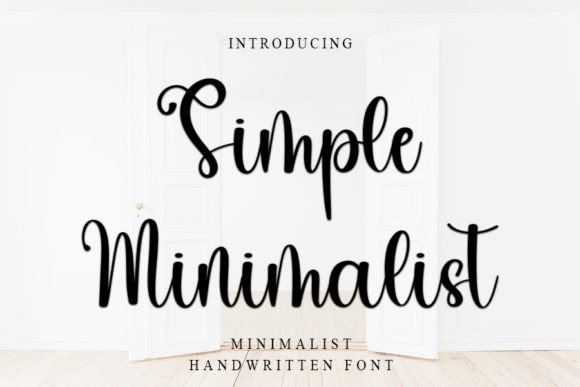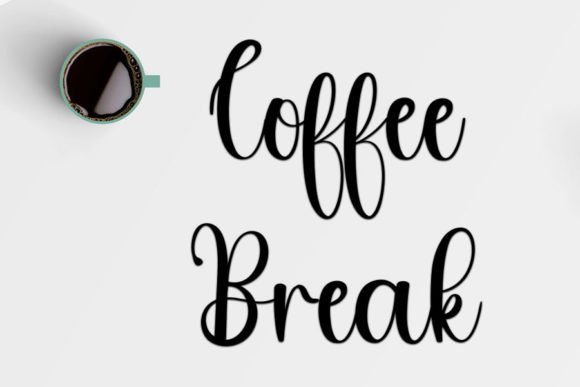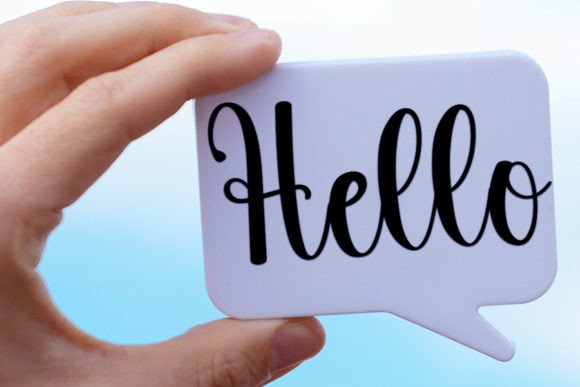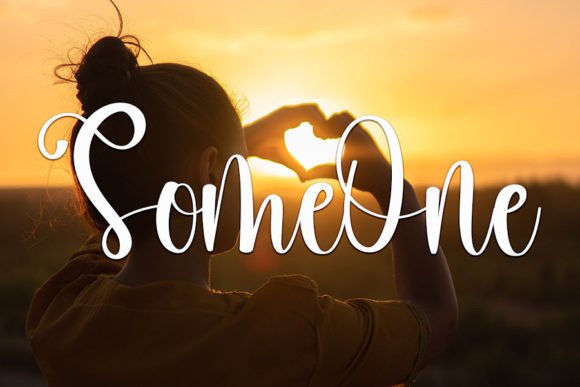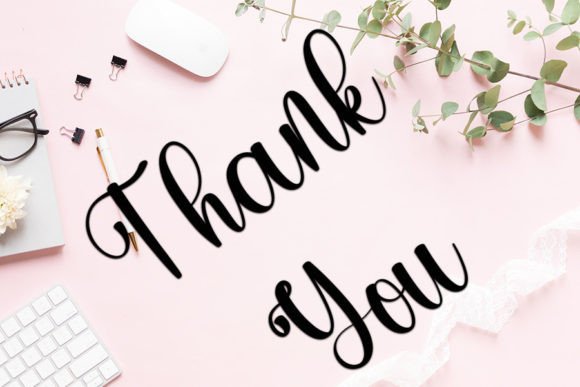
Simple Minimalist Font
About Simple Minimalist Font Download
The Simple Minimalist Font Download is a neat, beautiful handwritten script designed to bring elegance and timeless style to creative projects. With smooth curves and balanced characters, this typeface delivers sophistication while staying approachable. Whether you’re creating wedding invitations, branding designs, or digital content, Simple Minimalist adds a refined charm that enhances every design.
A Clean and Elegant Handwritten Typeface
The Simple Minimalist script font combines modern handwritten flow with a graceful rhythm. As a result, it feels versatile, stylish, and polished. Furthermore, its simplicity makes it adaptable to many different projects, from delicate stationery to bold branding campaigns.
Handwritten fonts are an excellent choice for stationery projects. The Simple Minimalist Font works beautifully for wedding invitations, thank-you notes, birthday cards, and seasonal greetings. Because of its elegant curves, each card feels personal and heartfelt. In addition, it helps convey emotion and sincerity in every design.
Branding and Logo Design with Simple Minimalist Font
Typography shapes the identity of a brand. The Simple Minimalist handwritten font is perfect for boutique logos, product packaging, and promotional campaigns. Its minimalist handwritten form communicates elegance, trust, and creativity. Therefore, it is especially useful for lifestyle, fashion, and luxury industries.
Posters, Editorials, and Creative Displays
The Simple Minimalist Font Download also performs wonderfully in posters, magazines, book covers, and inspirational quotes. Its neat handwritten style ensures readability while adding charm. Consequently, it is a dependable option for both print and digital layouts.
In the modern design world, fonts must adapt across multiple platforms. The Simple Minimalist typeface integrates smoothly into Instagram graphics, Pinterest boards, YouTube thumbnails, and blogs. Because of its clean handwritten flow, it makes digital projects stylish and visually engaging.
Why Designers Choose Simple Minimalist Typeface
Designers value fonts that balance beauty and practicality. The Simple Minimalist handwritten script provides elegance while remaining versatile and legible. Moreover, its timeless character ensures that it will stay trendy for years to come.